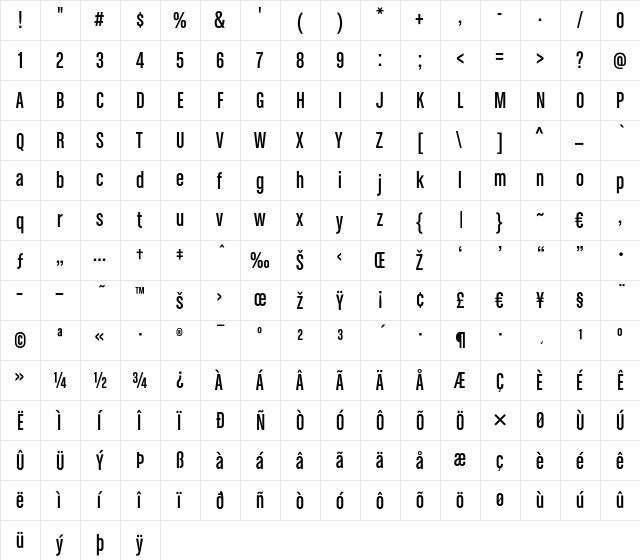
ChaletComprime-CologneSixty Regular
Design Context for ChaletComprime-CologneSixty Typeface
ChaletComprime-CologneSixty offers clean, dependable letterforms without strong stylistic allegiance, making it a practical choice for designers who need flexibility.
Pro Tip: Pair ChaletComprime-CologneSixty with a font of contrasting weight or personality to build a more expressive typographic hierarchy.